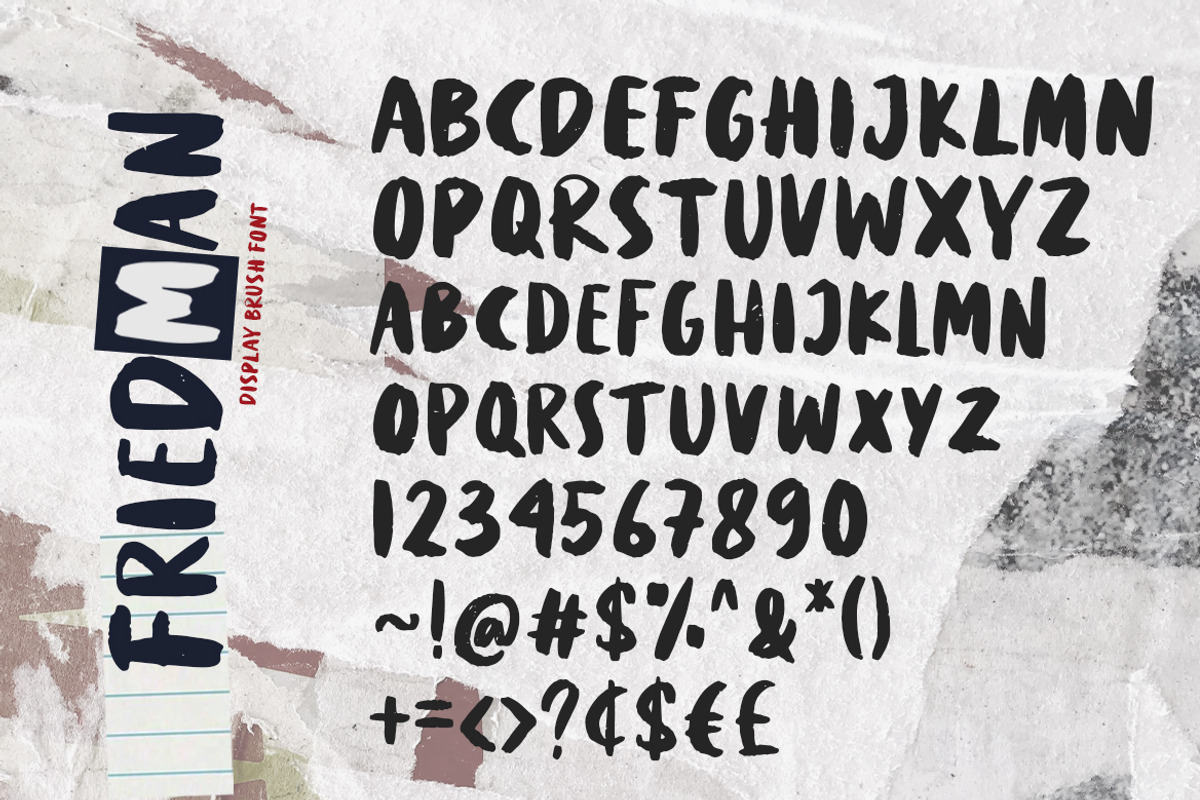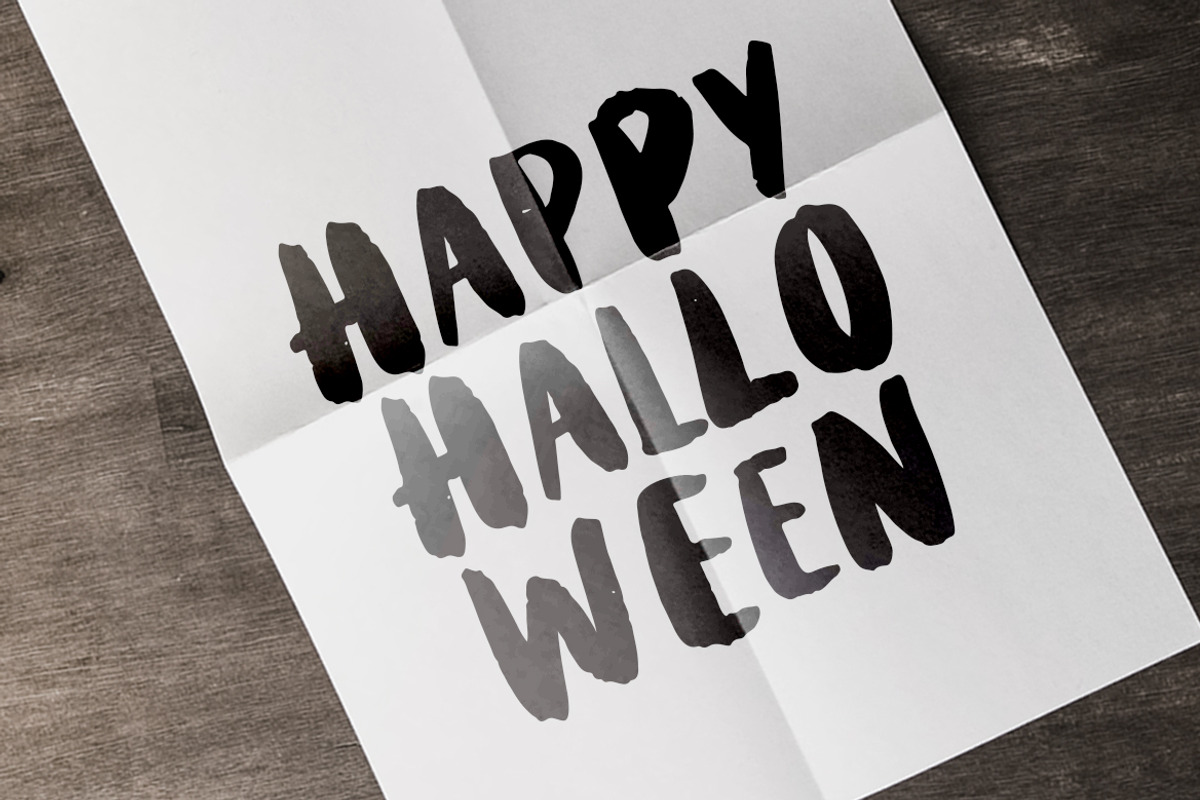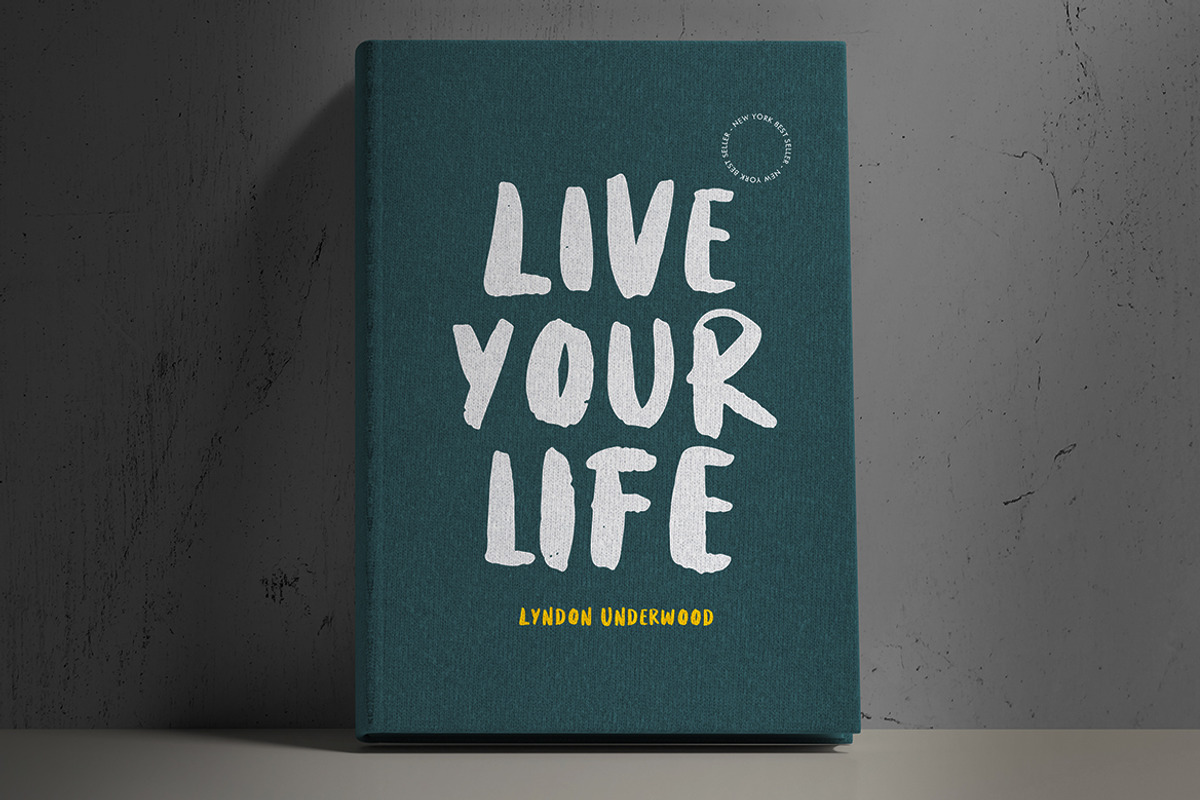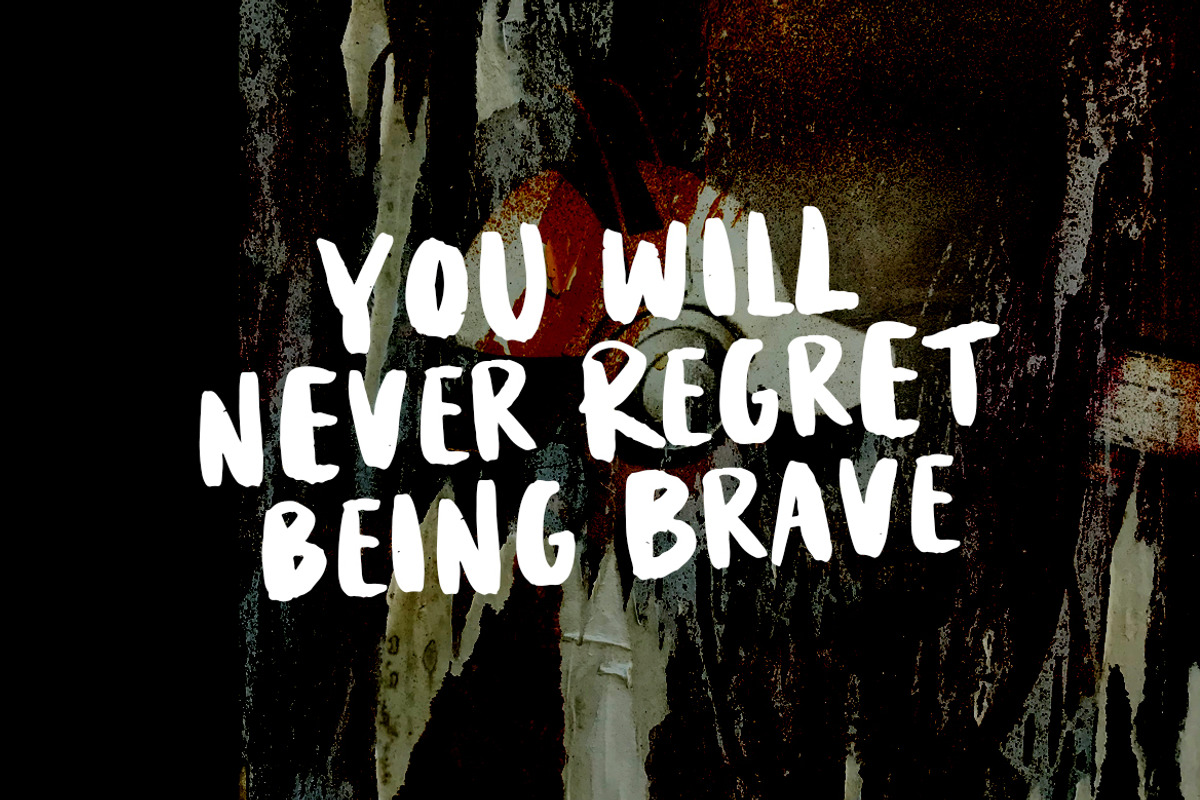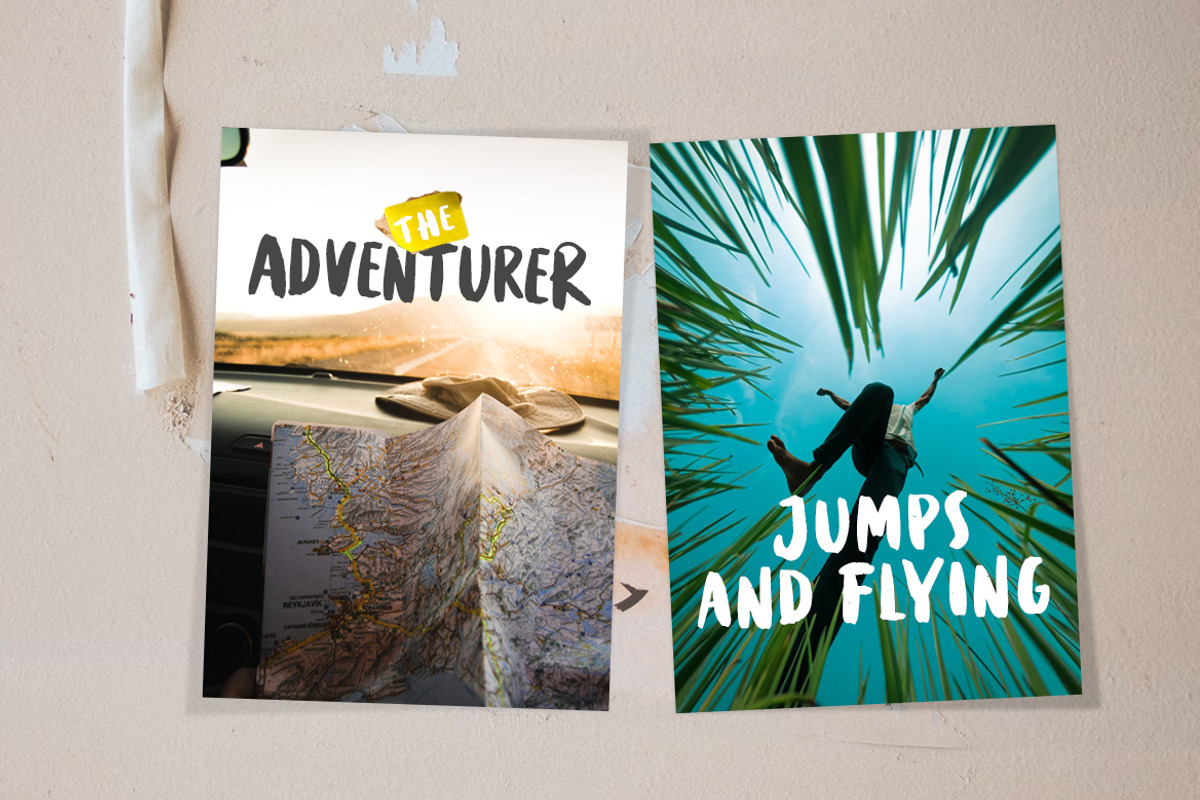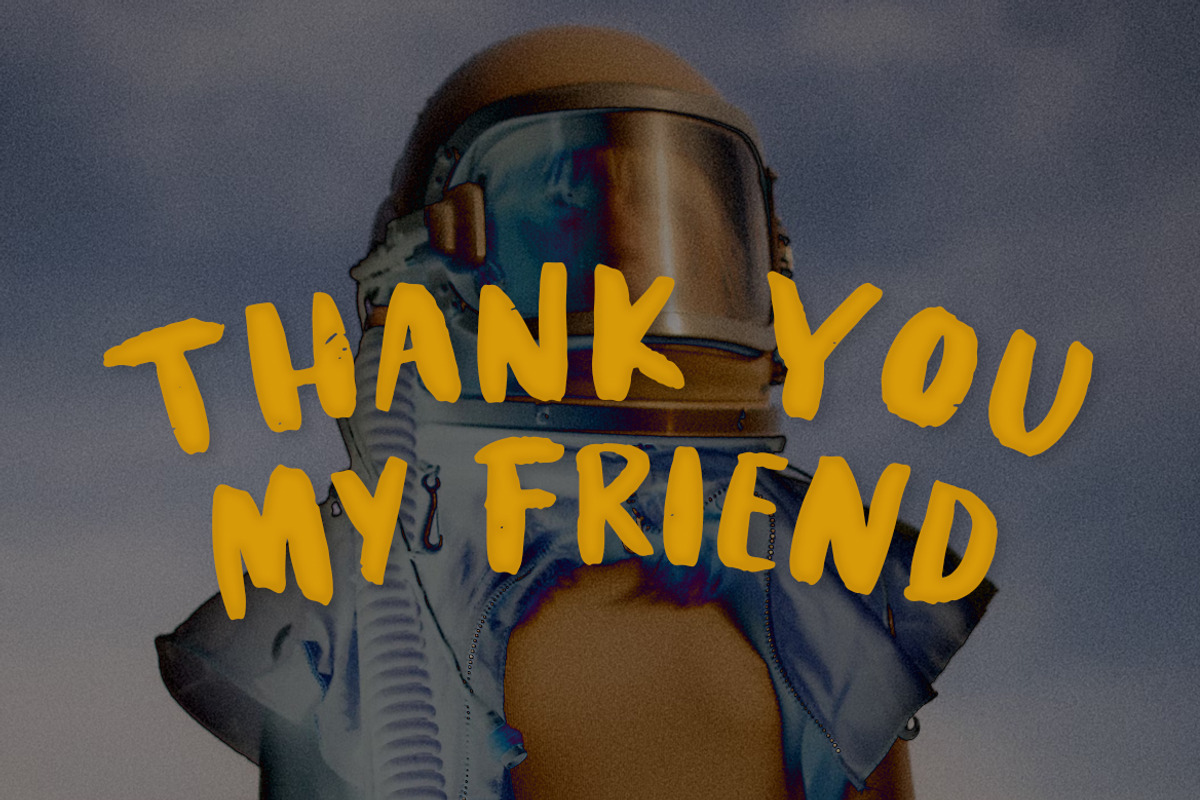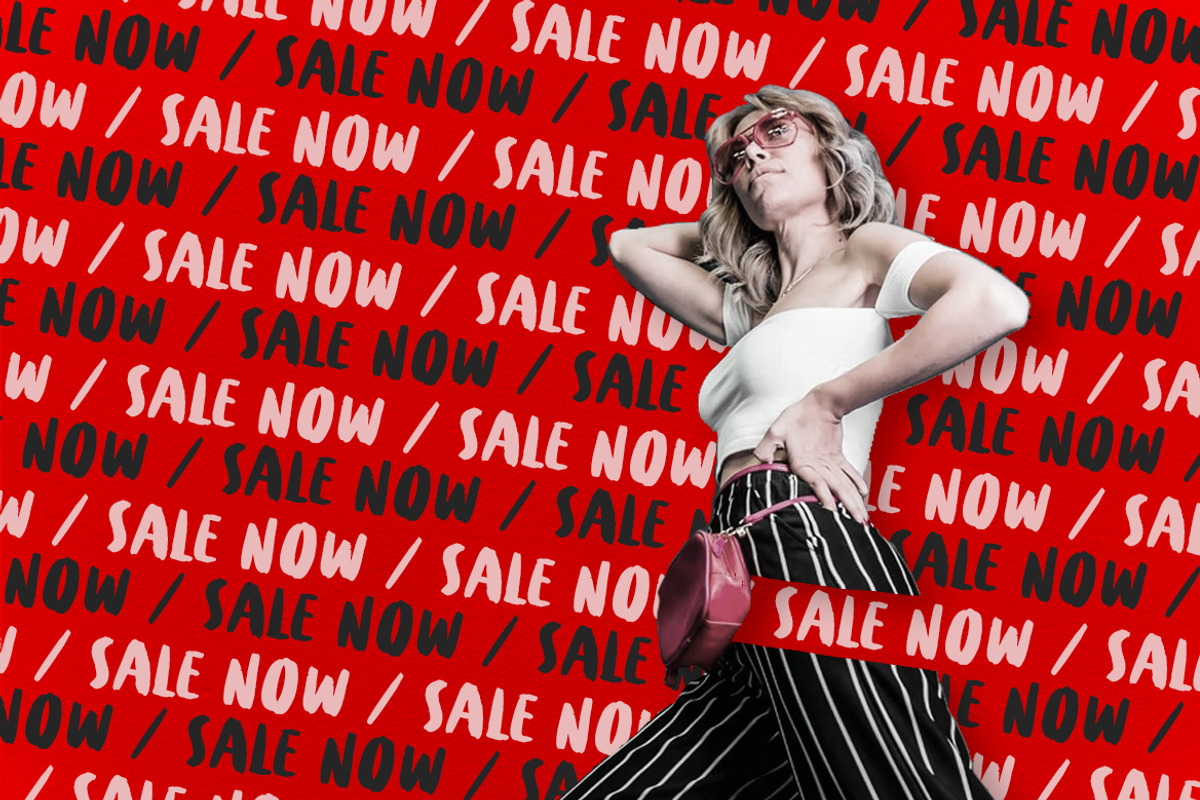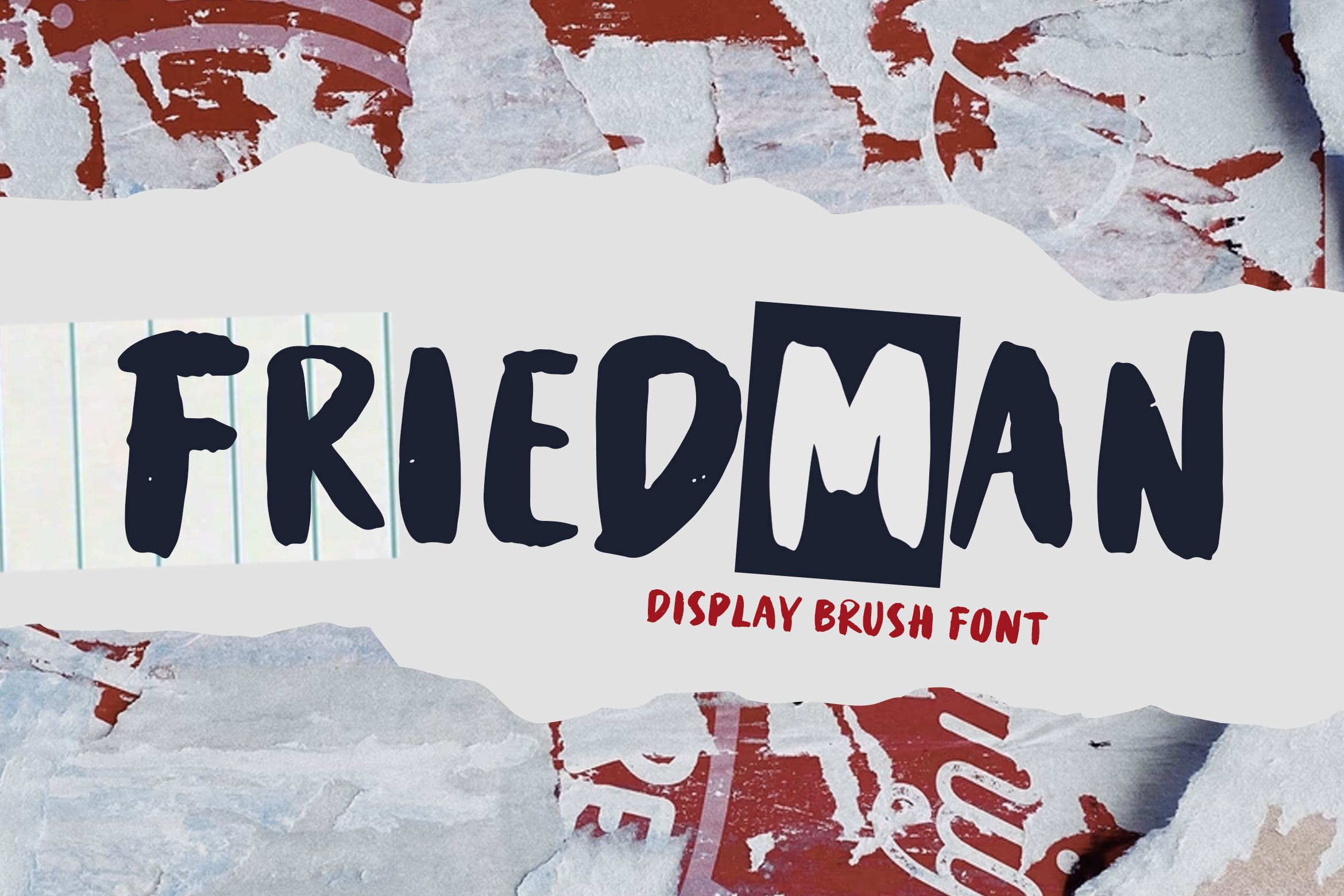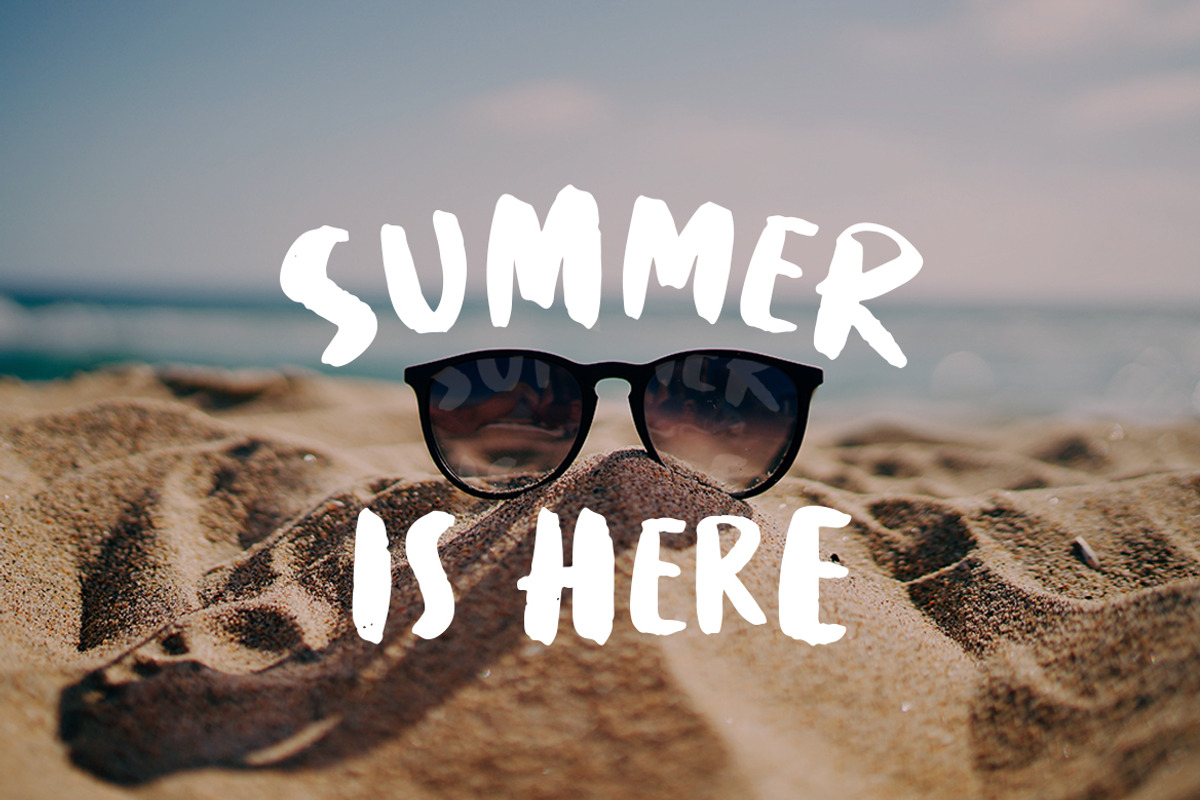
Friedman - Display Brush Font
Introducing Friedman - Display Brush Font! Friedman is brush font bursting with natural rough dry brush strokes, and the stroke of hand sharp and quickly. You can use and enjoy Friedman, for anything from promotional material to product packaging, merchandise, and branding projects. You can create with uppercase and lowercase combination, and make it as if you wrote it yourself.
All fonts is capitals containing upper & lowercase characters, numerals, multilingual support, and a large range of punctuation.